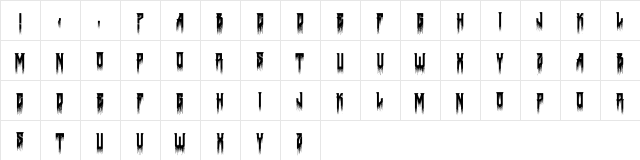
Death to Metal Regular
Design Context for Death to Metal Typeface
Death to Metal carries an unsettling edge — its distorted letterforms are built to unsettle, perfectly suited to horror, Halloween, and dark creative work.
Perfect for anything that needs to unsettle — game titles, horror branding, and macabre invitations.
Font Pairing: Pair with a clean neutral sans-serif for body copy to let Death to Metal's character lead without overwhelming the composition.
Pro Tip: Use Death to Metal at larger display sizes for maximum impact. Consider generous tracking to let the disturbing character of each letterform breathe.